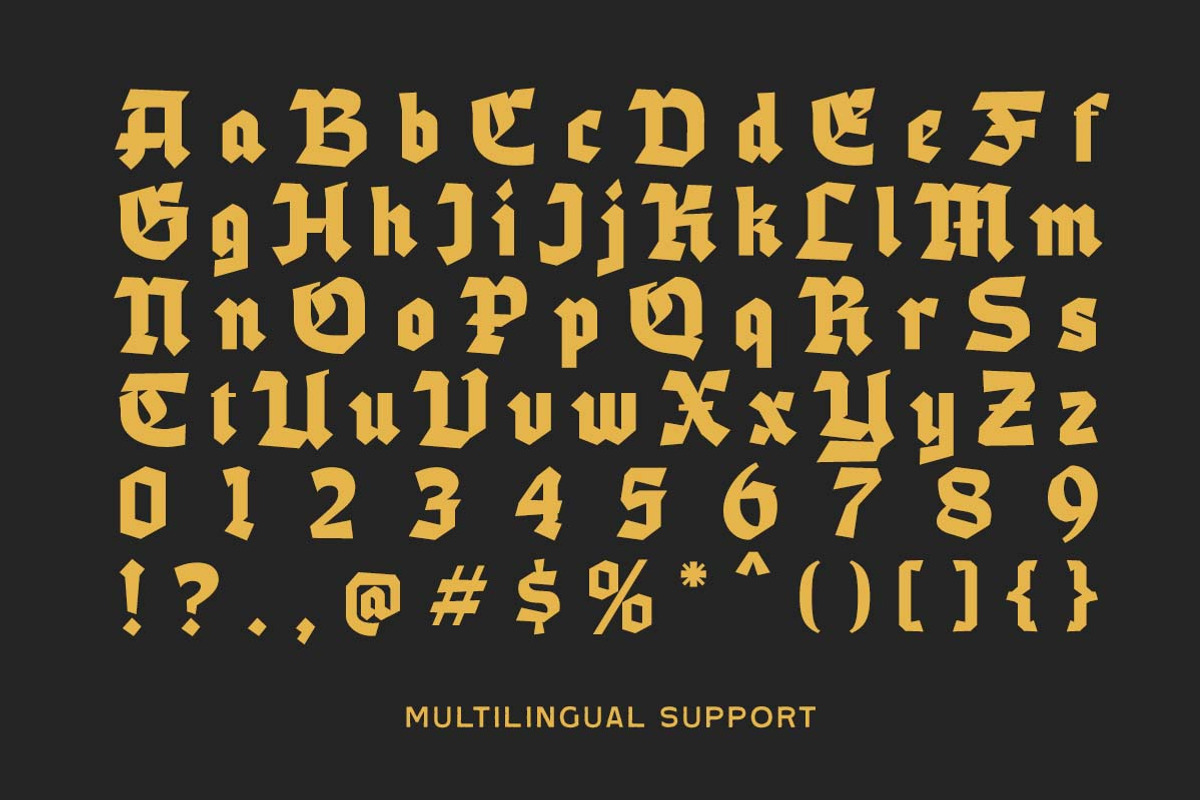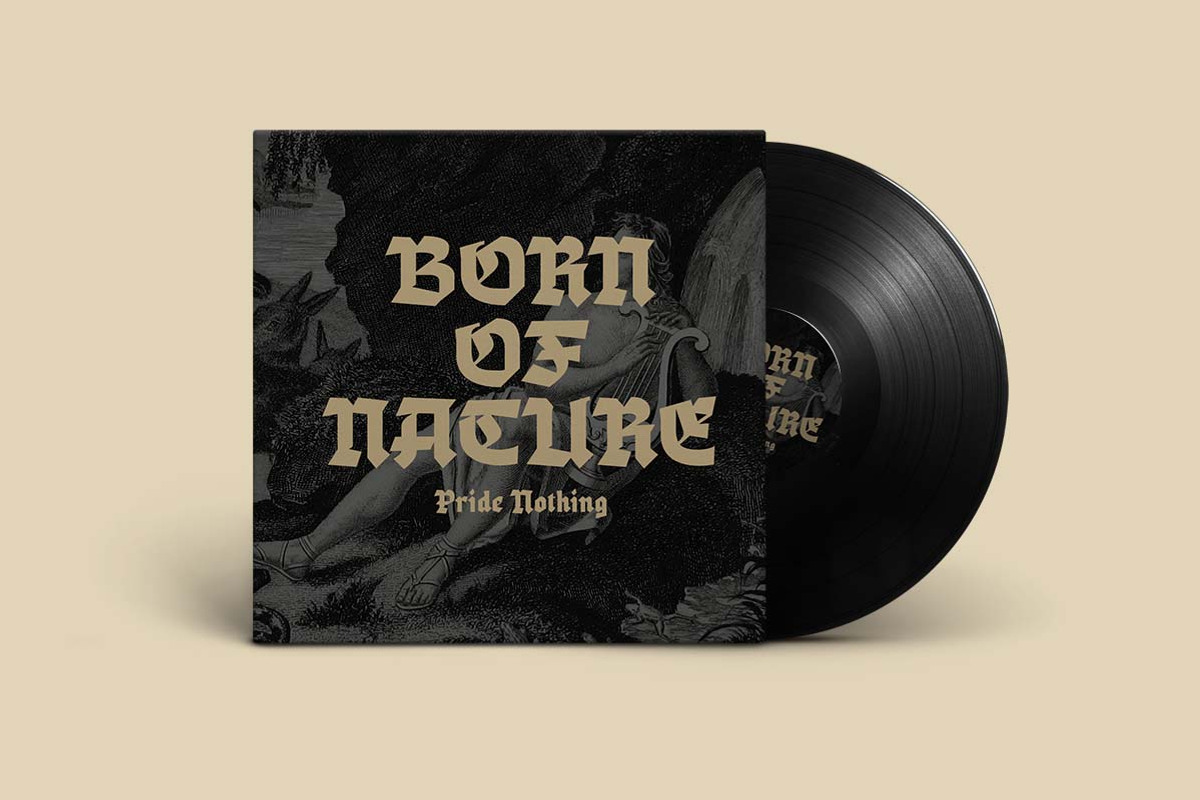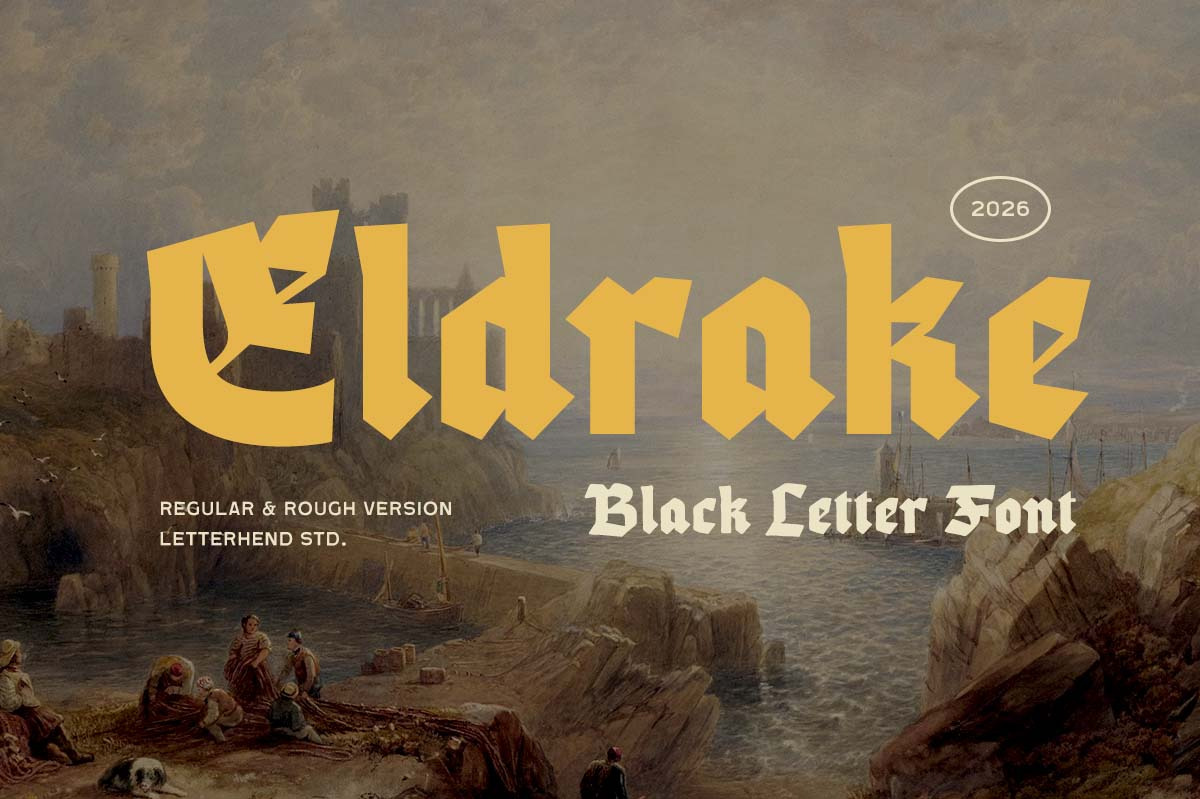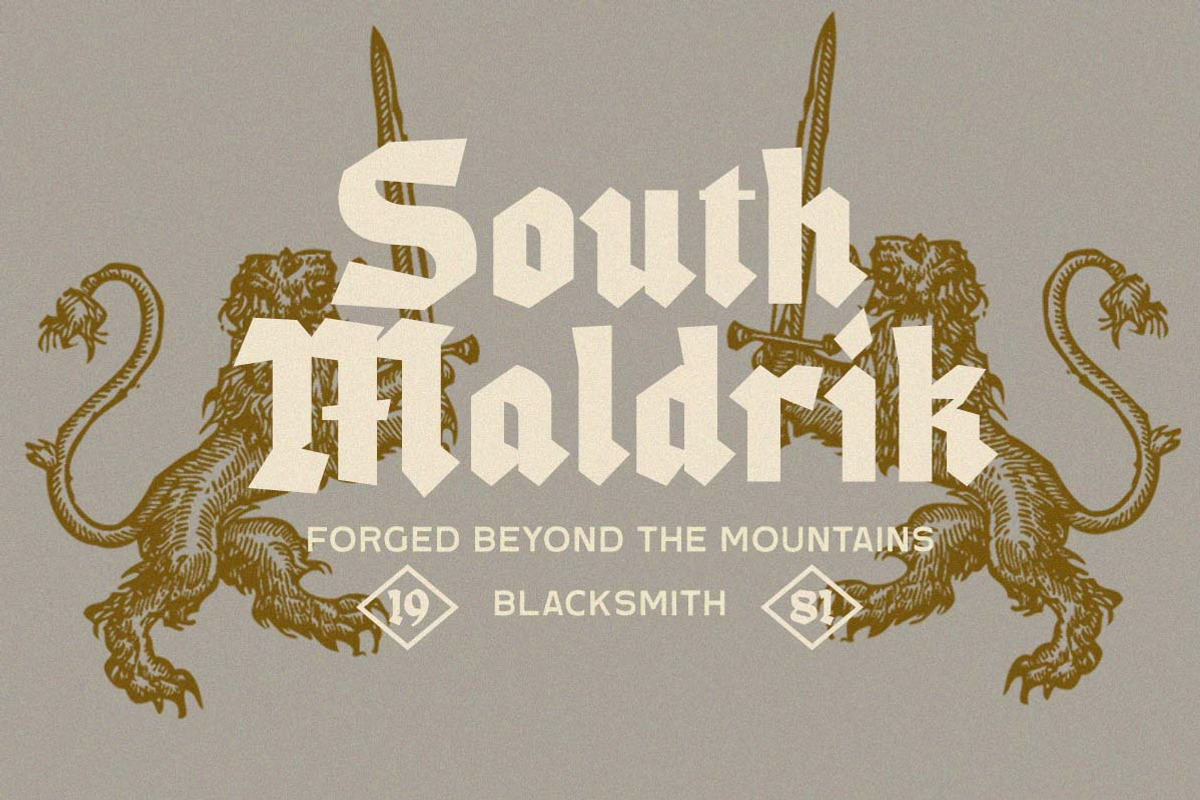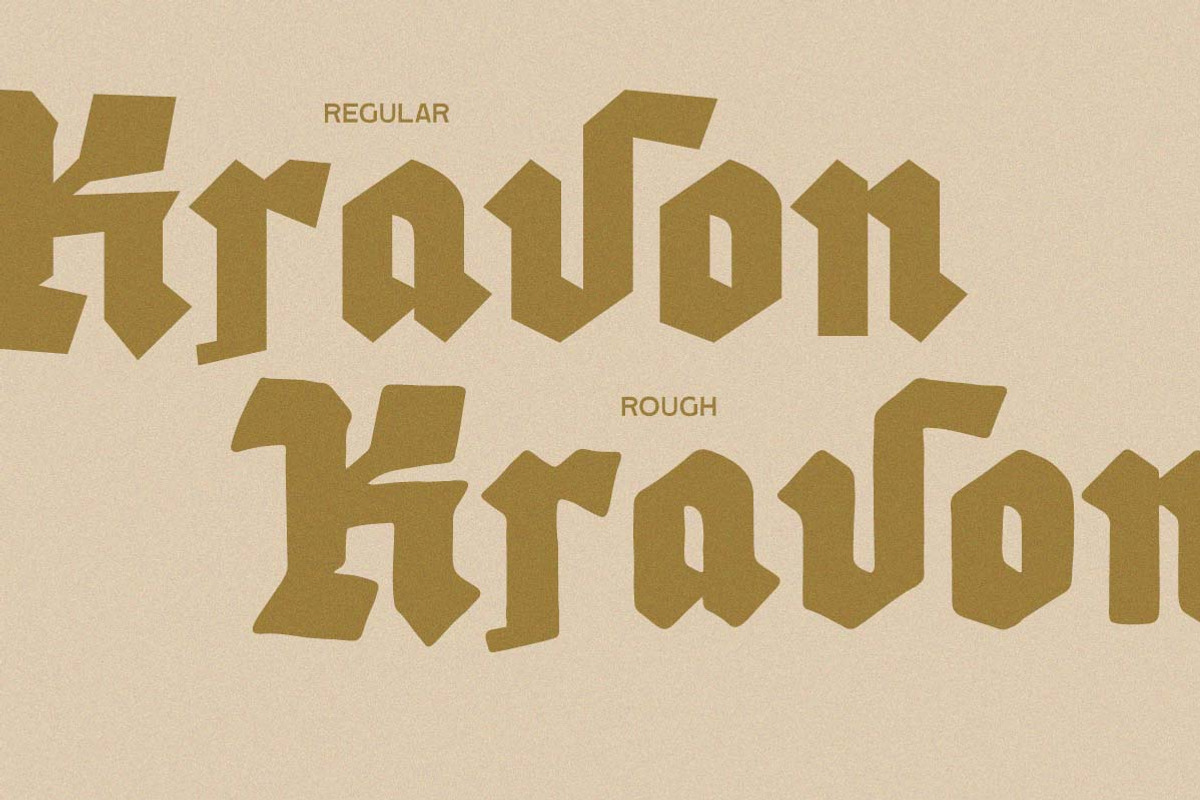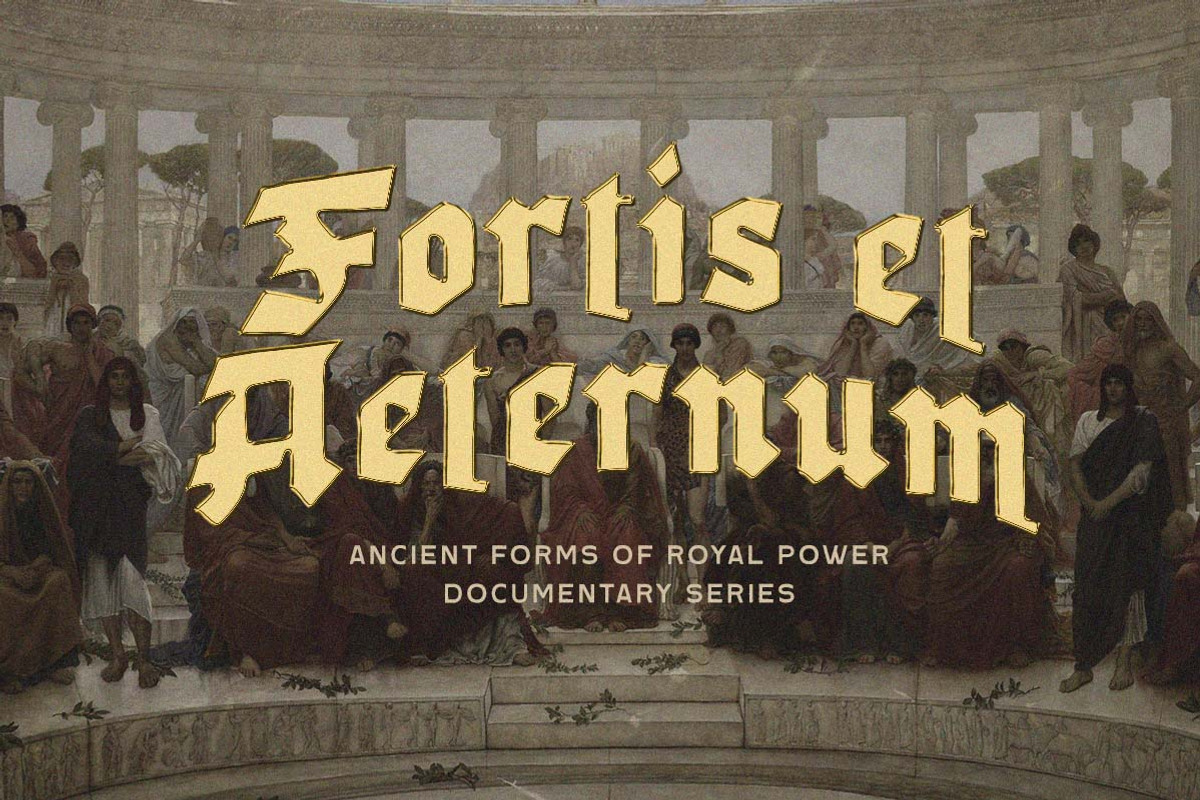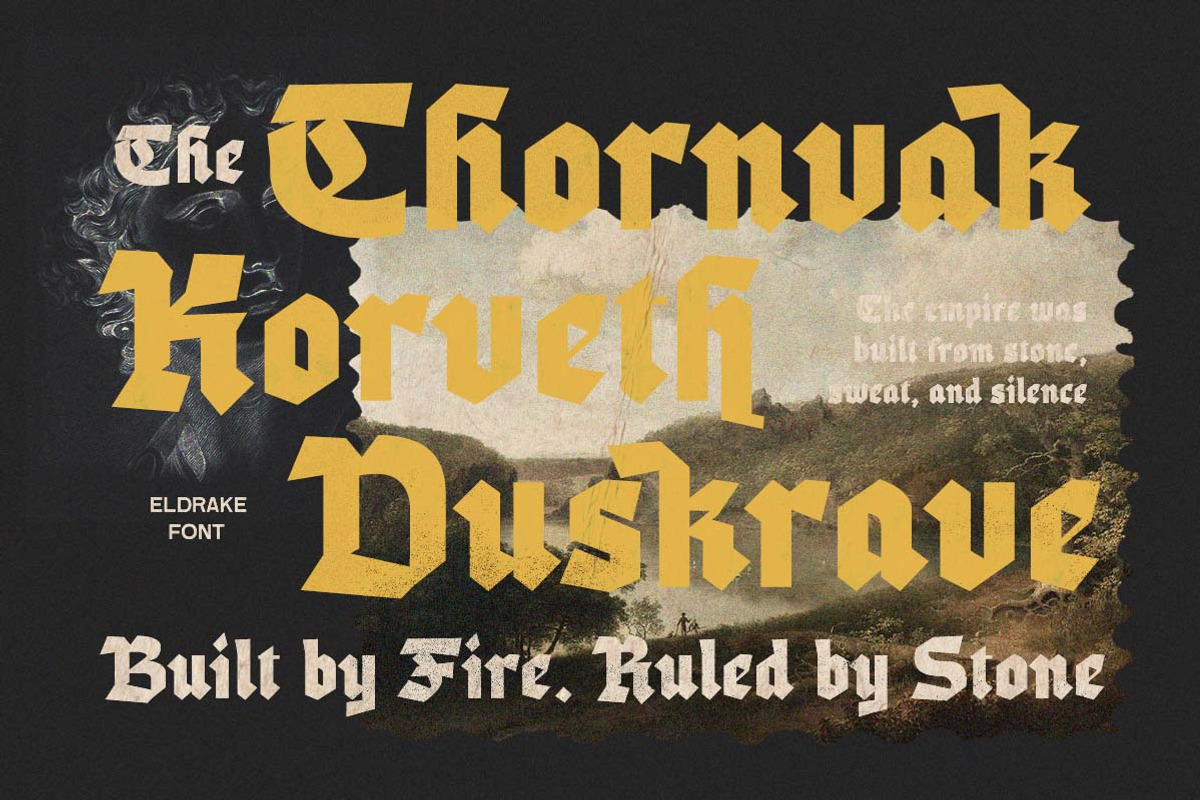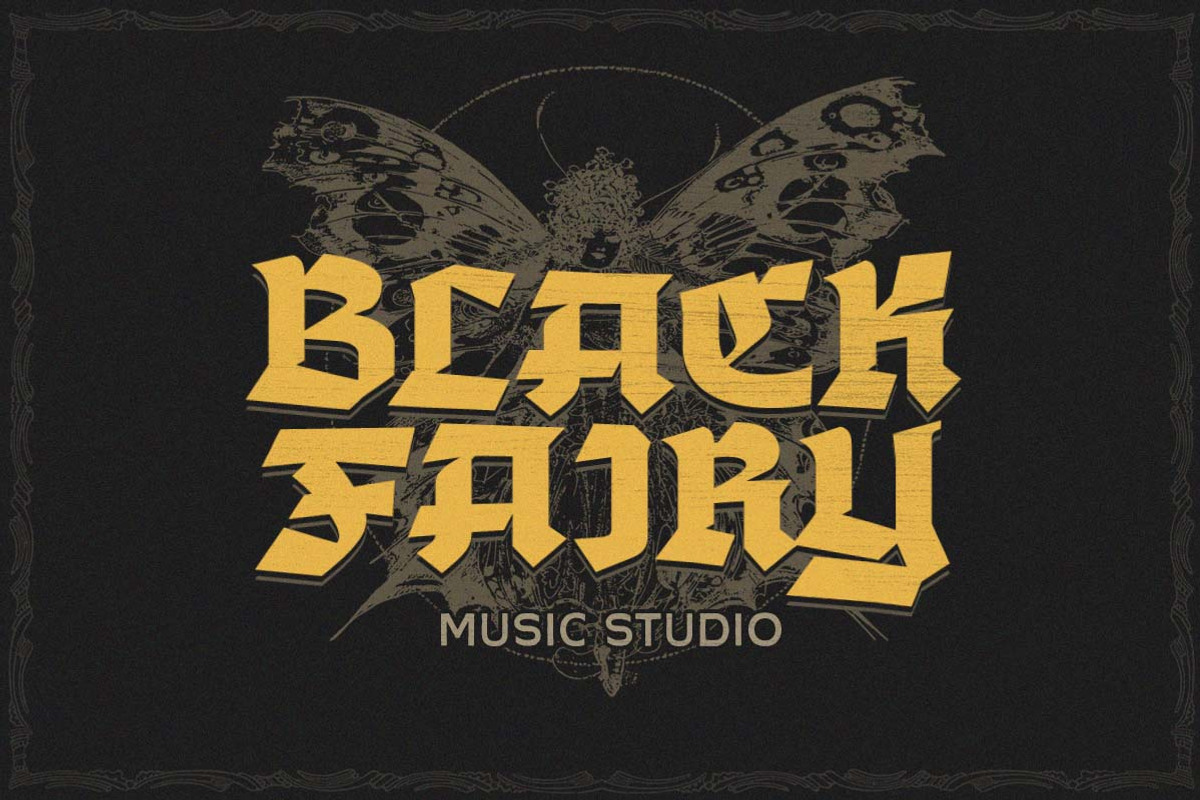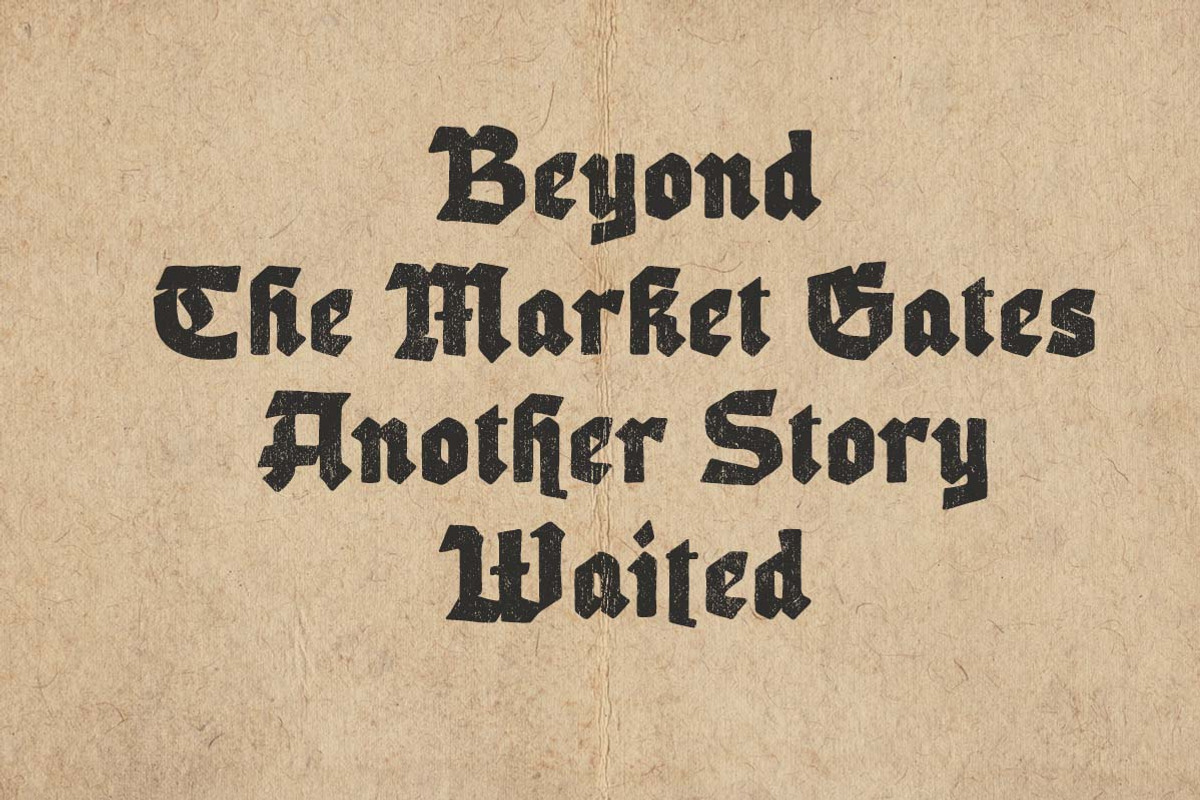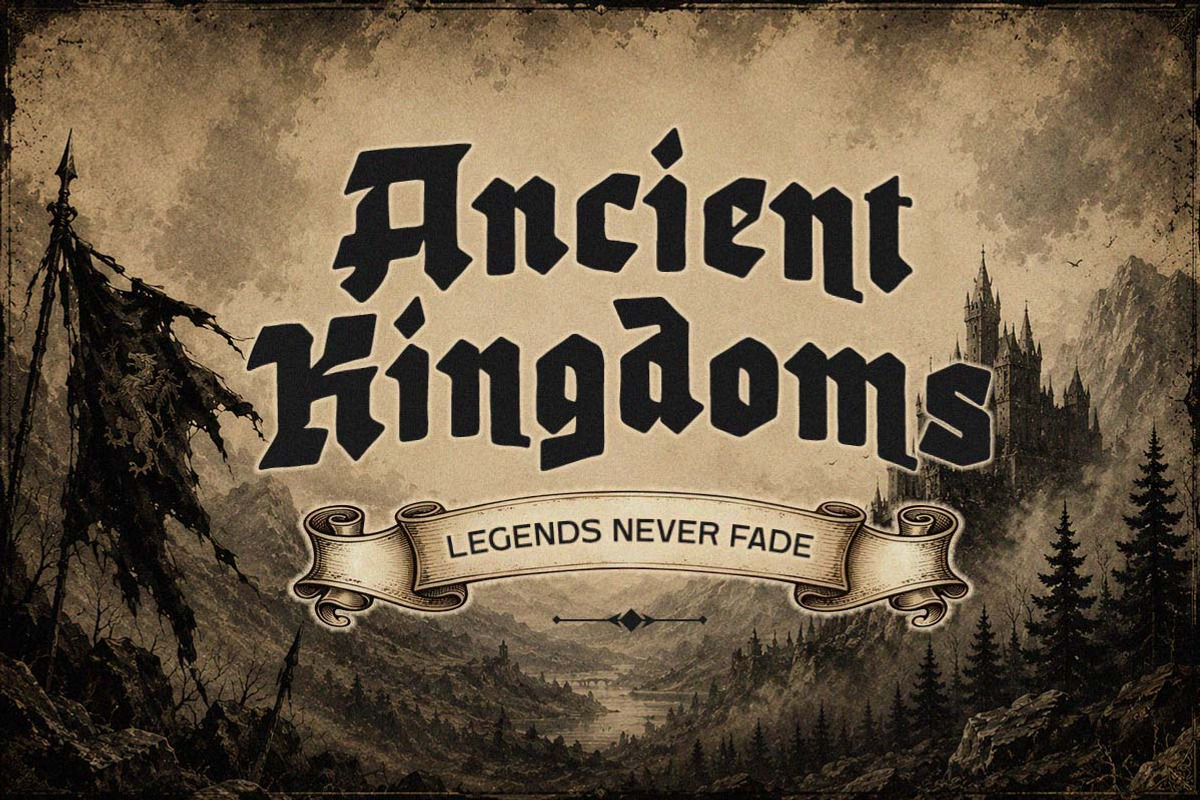
Eldrake Blackletter Font
Eldrake carries the spirit of ancient kingdoms, weathered stone walls, and forgotten legends. Its bold blackletter forms blend classic medieval character with a clean, modern structure, creating a look that feels strong, mysterious, and commanding without losing readability.